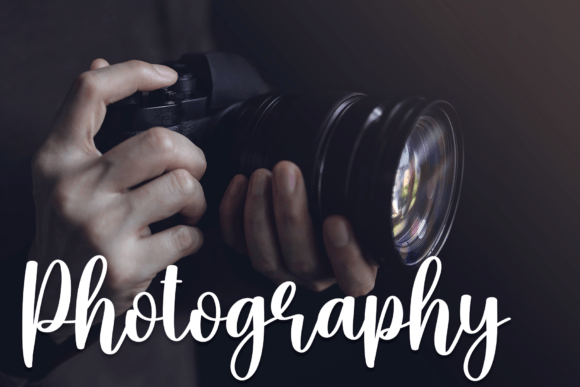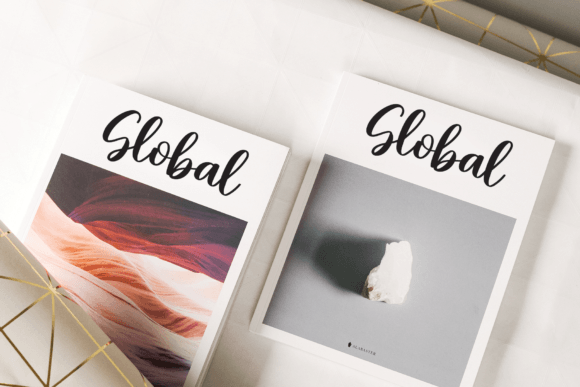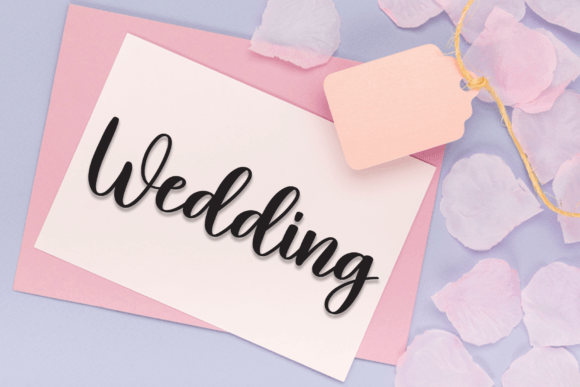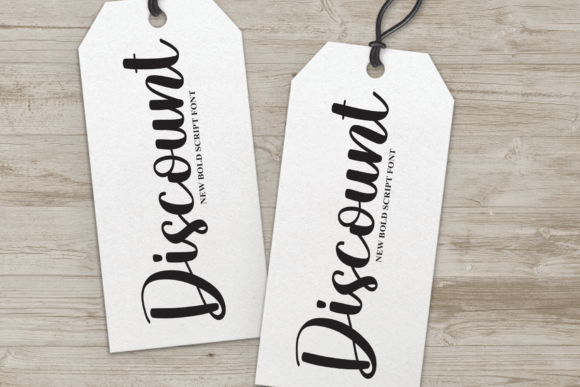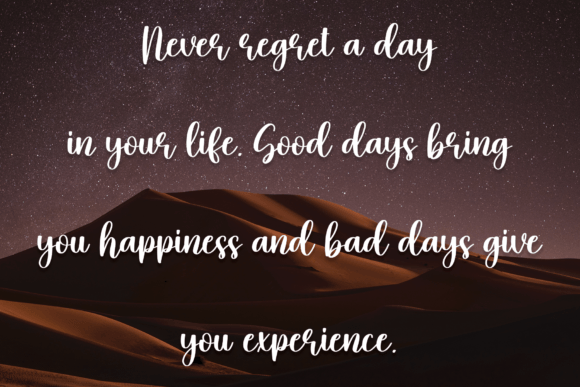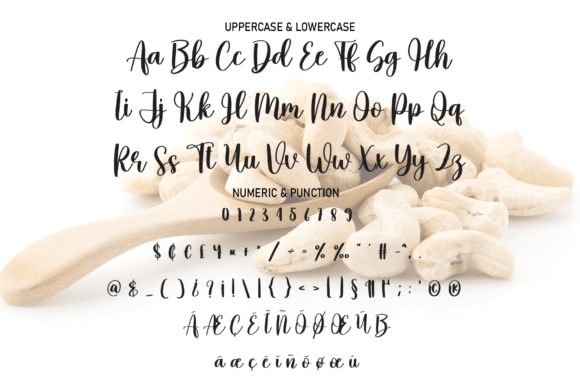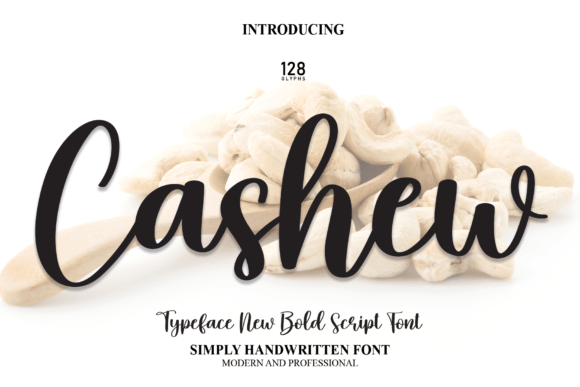
The Cashew Font: A Sweet Addition to Your Design Toolkit
I’ll never forget the time I was working on a project for a client who wanted a custom wedding invitation. I had spent hours agonizing over the design, but something was missing. The layout was perfect, the colors were gorgeous, but the font just wasn’t doing it for me. That’s when I stumbled upon the Cashew font. This cute and adorable handwritten script font instantly added a joyful and romantic touch to the design, and I knew I had found the perfect fit.
What I Love About Cashew Font
- ✨ The gentle, cursive strokes make it perfect for projects that need a touch of elegance and whimsy.
- ✅ The font is highly legible, even at smaller sizes, making it versatile for a variety of design applications.
- 💕 The romantic and playful vibe of Cashew font makes it ideal for wedding invitations, baby shower announcements, and other special occasion designs.
While Cashew font is an amazing addition to any design project, there are a few things to keep in mind. 🤔 For example, some of the letters may appear a bit narrow, which can make it tricky to use in combination with other fonts. Additionally, ⚠️ the font doesn’t come with a bold or italic version, which may limit its use in certain design situations.
The Story Behind Cashew Font
While the true story behind Cashew font may be unknown, it’s easy to imagine that it was created by a designer who loves elegant, handwritten scripts. Perhaps the designer was inspired by the beauty of nature and wanted to create a font that captured the whimsy and romance of the natural world. Whatever the inspiration, Cashew font is a beautiful addition to any design project.
Q: What type of projects is Cashew font best suited for?
A: Cashew font is perfect for projects that need a touch of elegance and whimsy, such as wedding invitations, baby shower announcements, and other special occasion designs.
Q: Is Cashew font easy to read?
A: Yes, Cashew font is highly legible, even at smaller sizes. This makes it a great choice for designs that need to communicate a message clearly and effectively.
Q: Can I use Cashew font in combination with other fonts?
A: Yes, Cashew font can be used in combination with other fonts. However, be sure to choose fonts that complement each other in terms of style and personality.